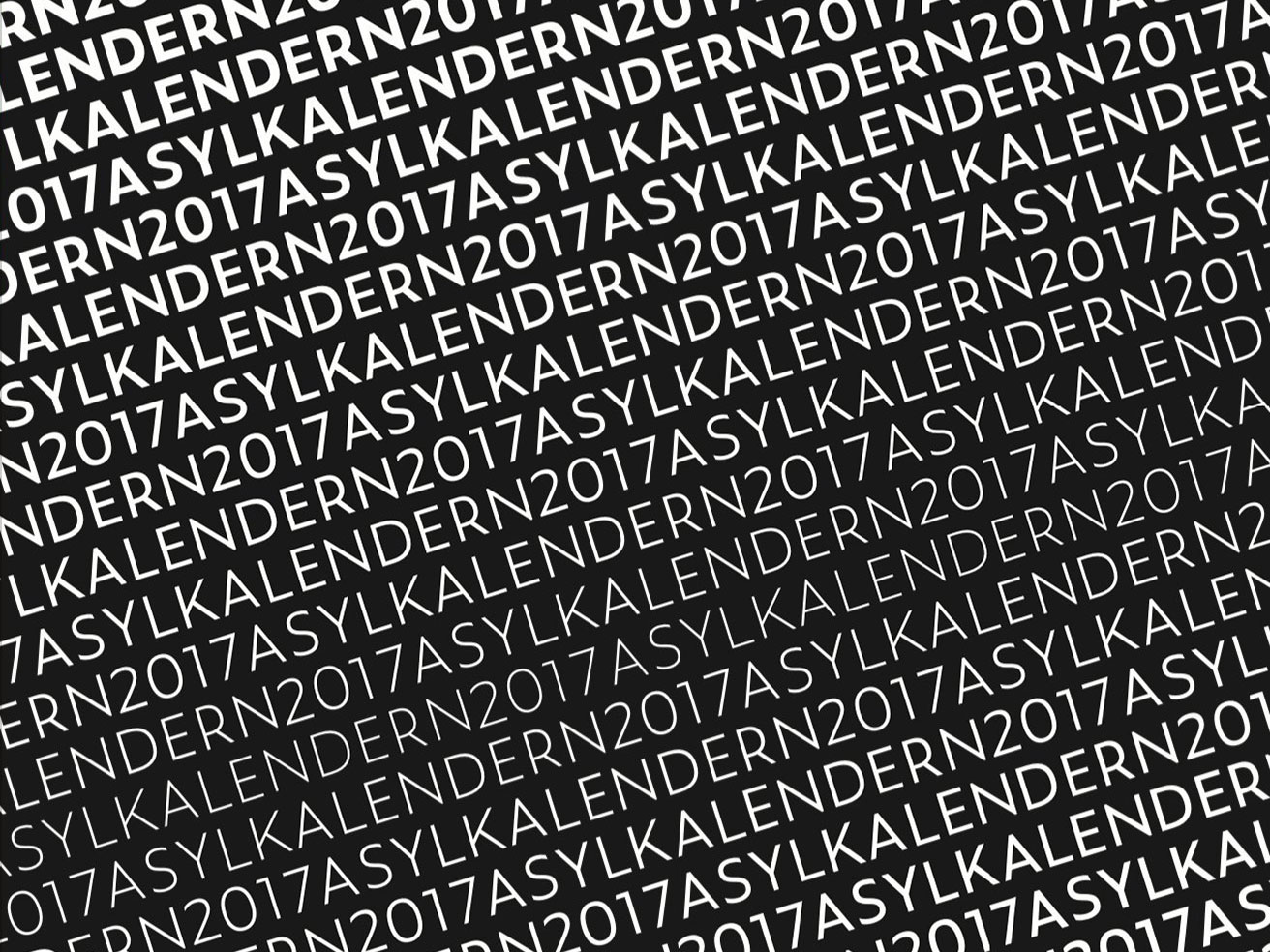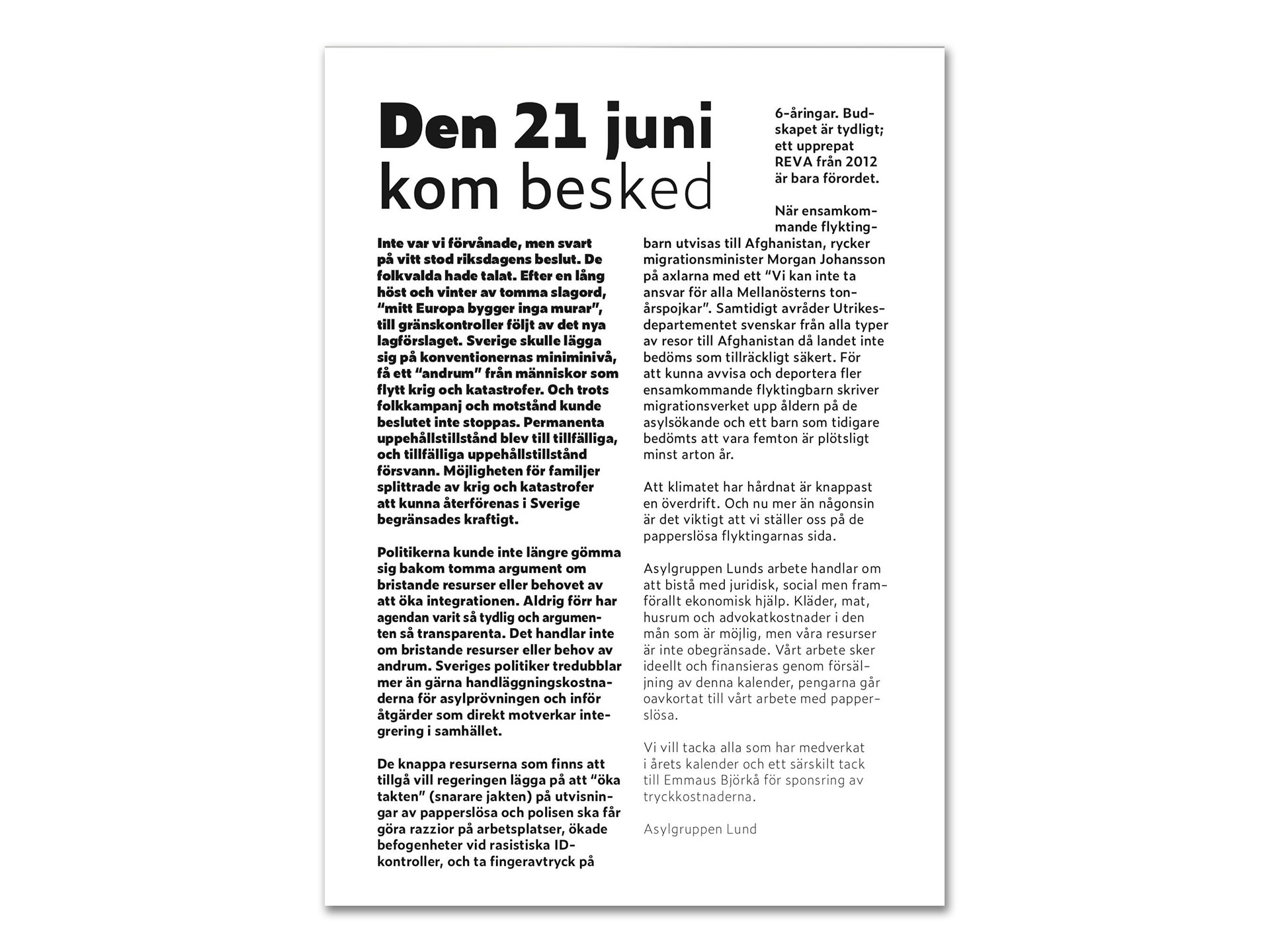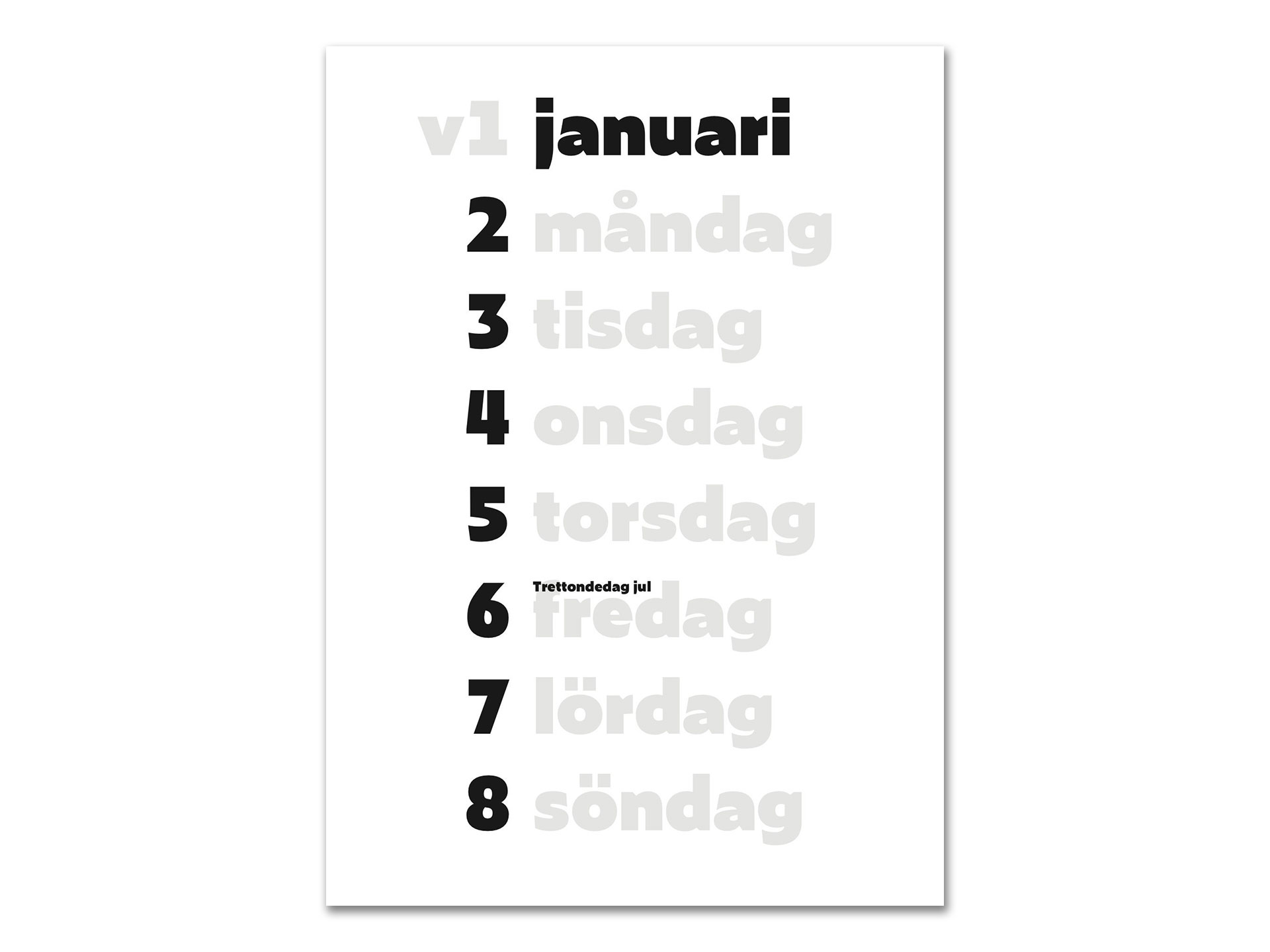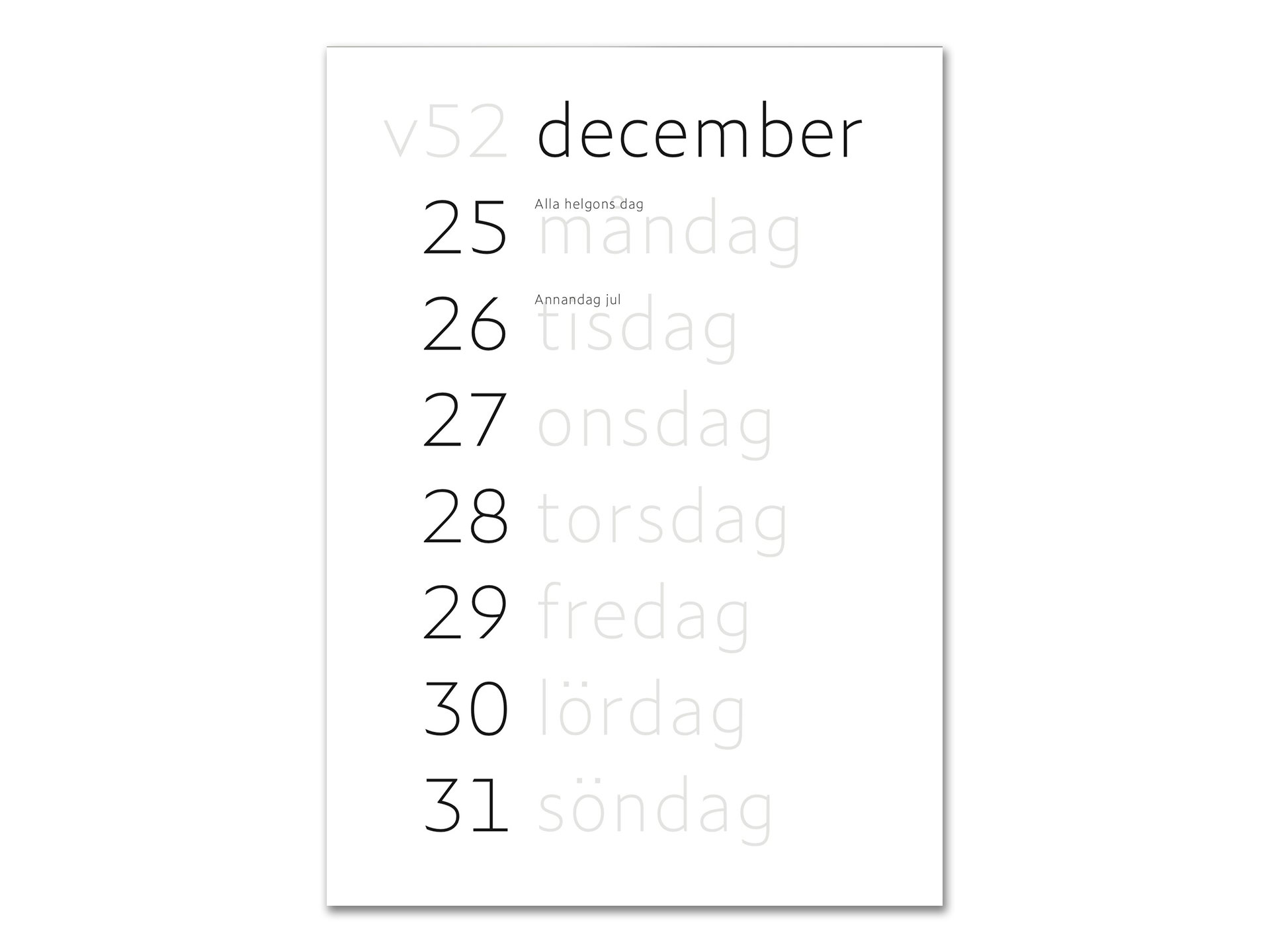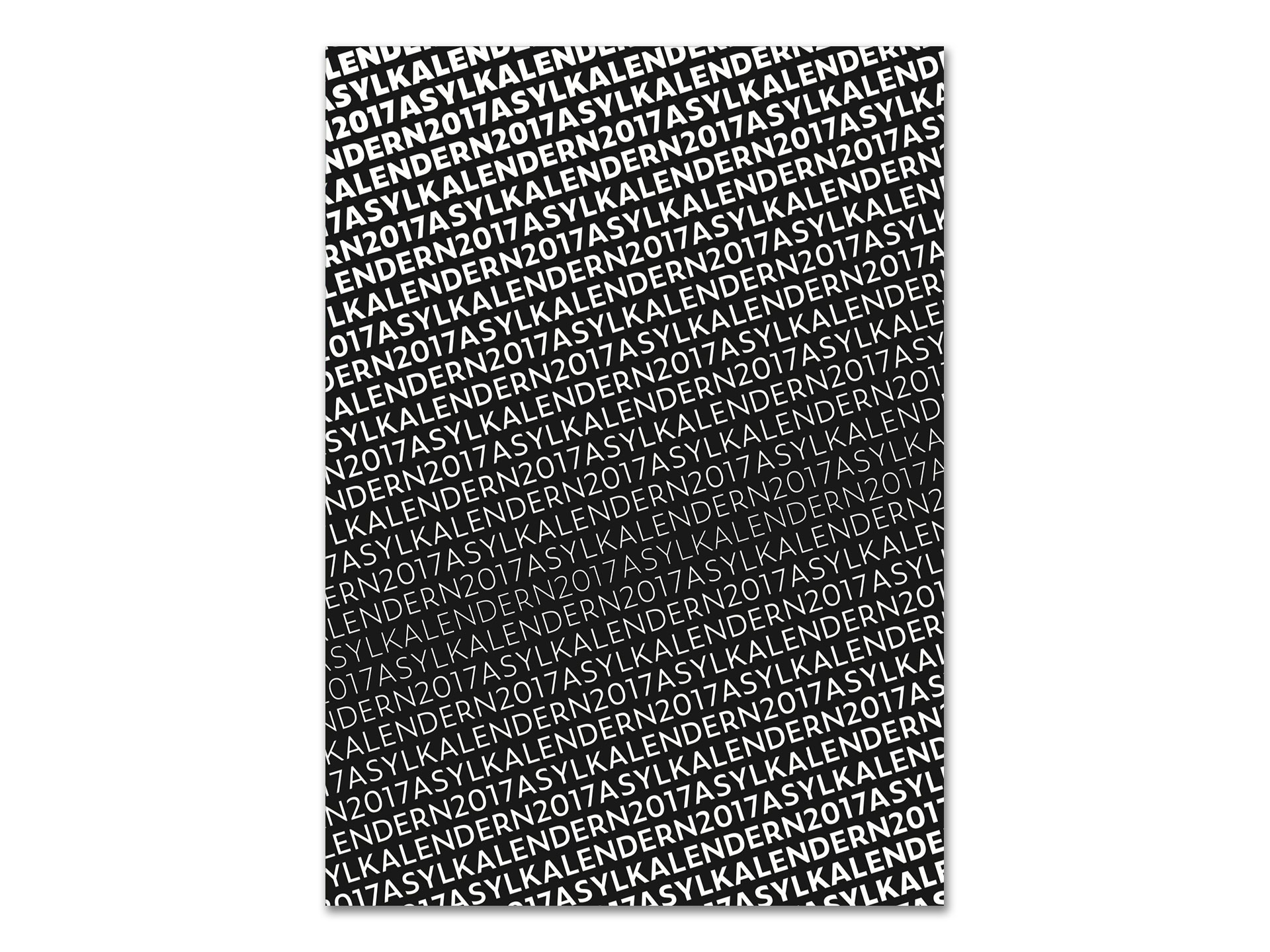
This is an example of variable typography before the variable font format was supported in desktop applications.
“I used @underware’s Zeitung for an almanack in 2016. Text got lighter by the day. In hindsight I should have tied the concept to sunlight, but hey.” — https://twitter.com/PatchHofweber/status/1191985020925288448
Almanack
Patrick Hofweber
Swedish
Zeitung